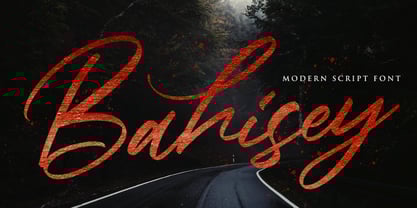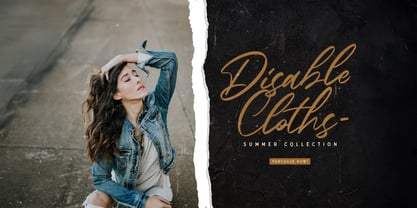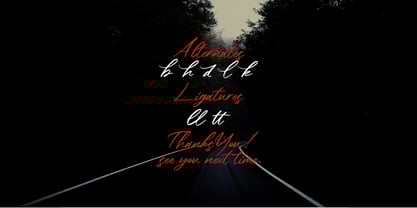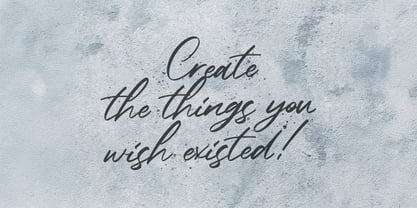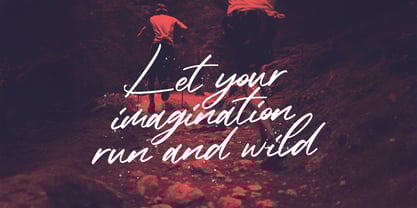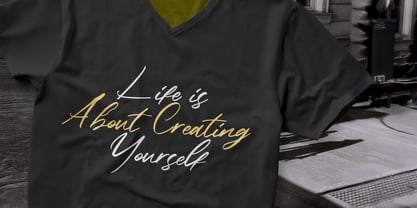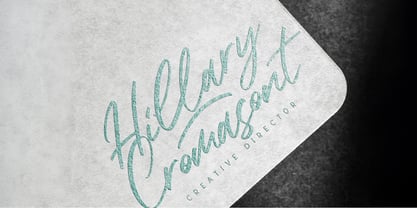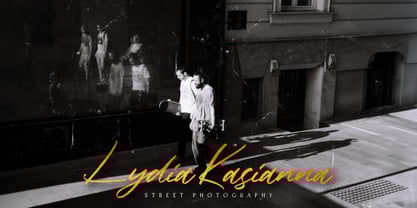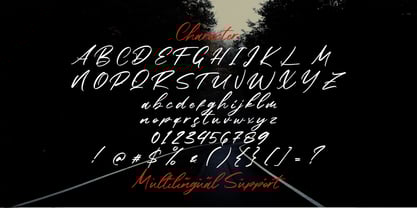
The Bahisey Font Family was designed by Virgiawan Listanto and published by Stringlabs Creative Studio. Bahisey contains 1 styles.
Bahisey is a beautifully crafted modern script font that combines elegance with a fresh, contemporary feel. With its smooth curves and stylish lettering, it’s perfect for adding a sophisticated touch to any project.
Bahisey